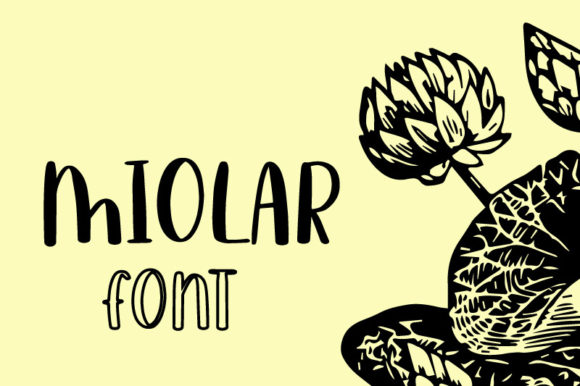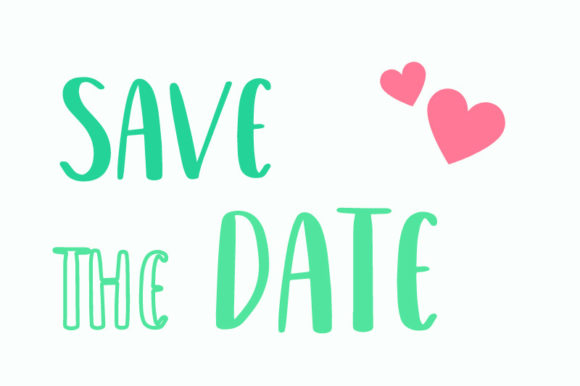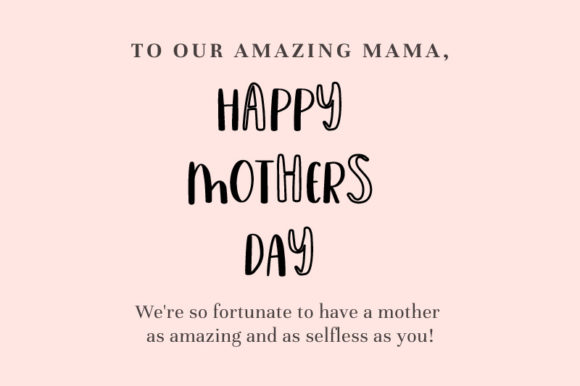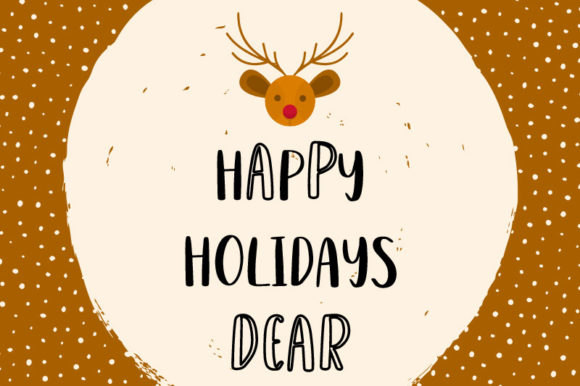
Miolar Font
About Miolar Font
Miolar is a fun and quirky handwritten font. This typeface was carefully crafted to become a true favorite, it features a modern style that will take your designs to the next level!